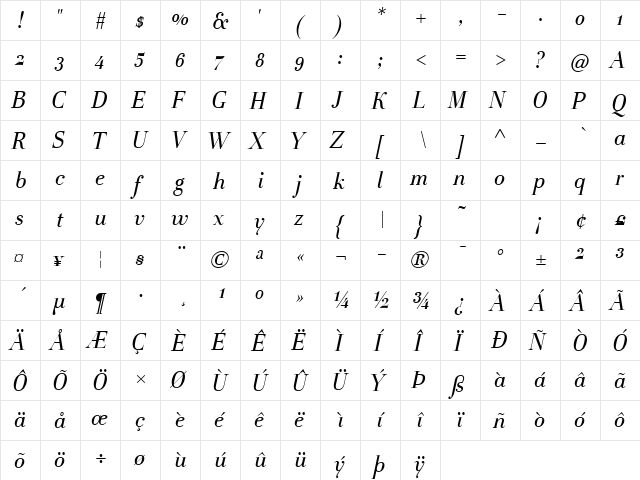
Holmen-RegularItalic Regular
| Foundry | FSI FontShop International GmbH |
| Designer | Per Jorgensen |
Design Context for Holmen-RegularItalic Typeface
Holmen-RegularItalic is a composed and adaptable typeface that performs quietly and consistently across a wide range of design contexts. Its italic angle brings a sense of urgency and motion to the letterforms.
Pro Tip: Try Holmen-RegularItalic for annotation and caption copy alongside an upright companion — the contrast in angle creates a dynamic but ordered typographic system.